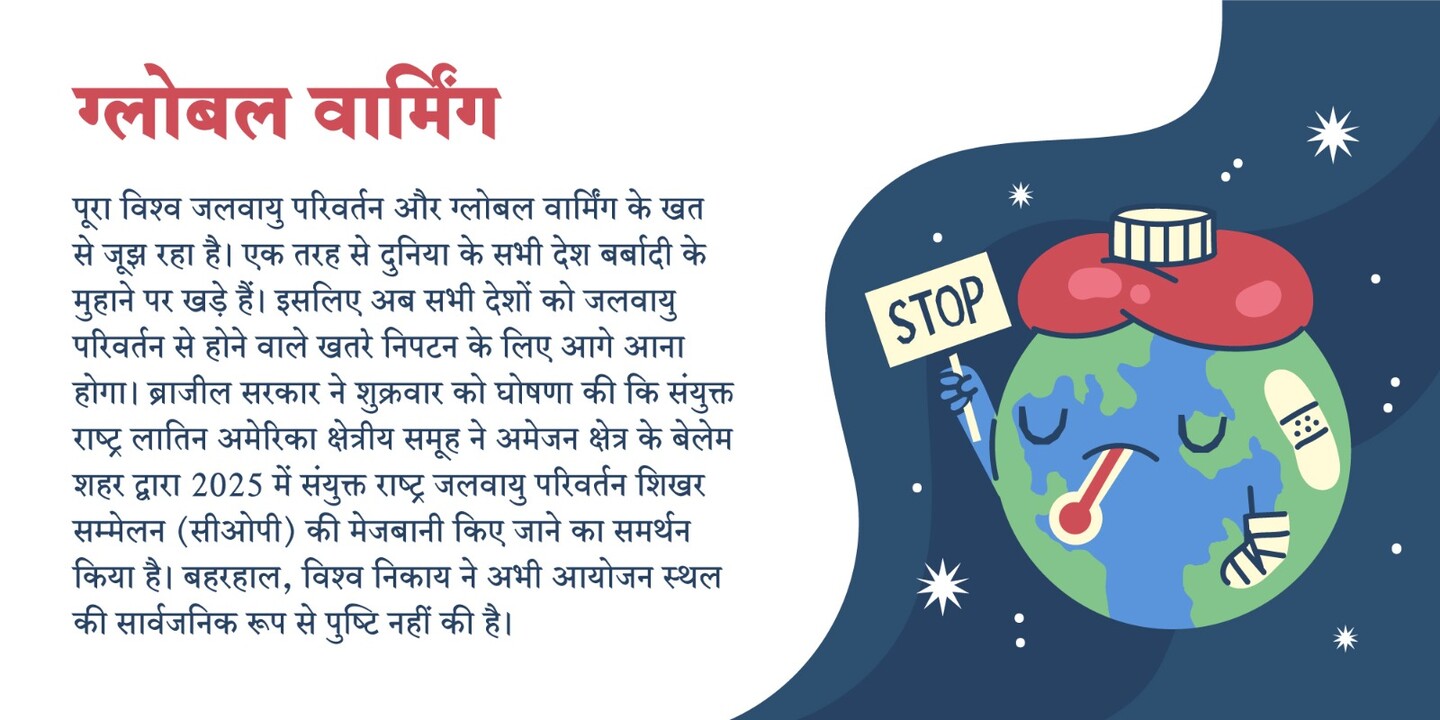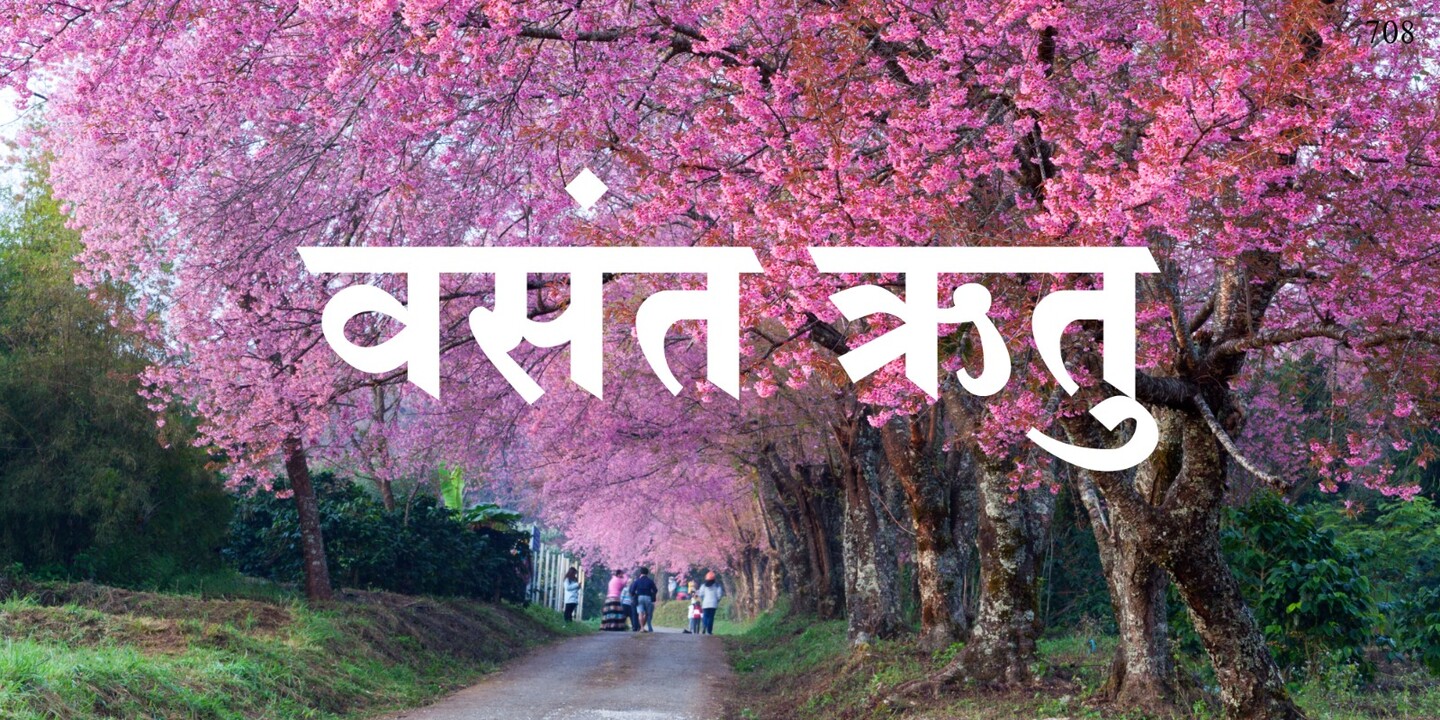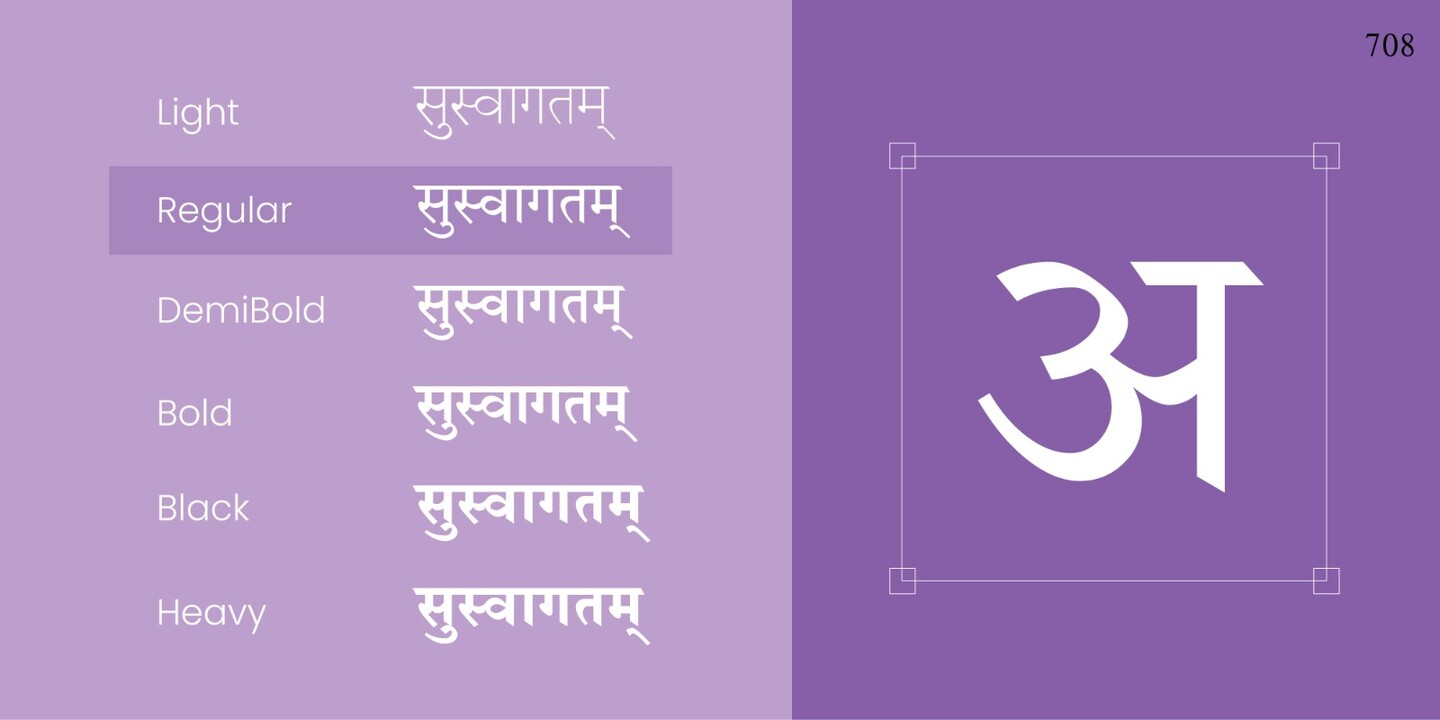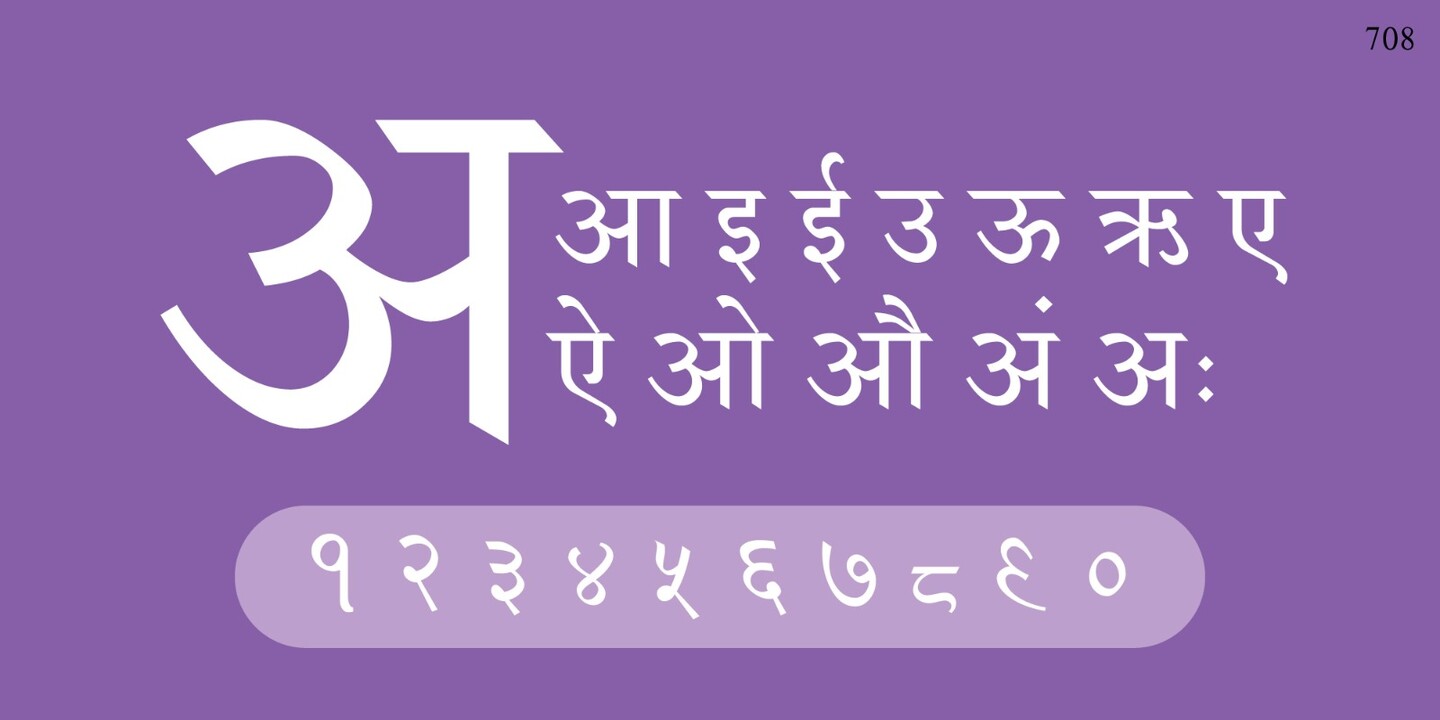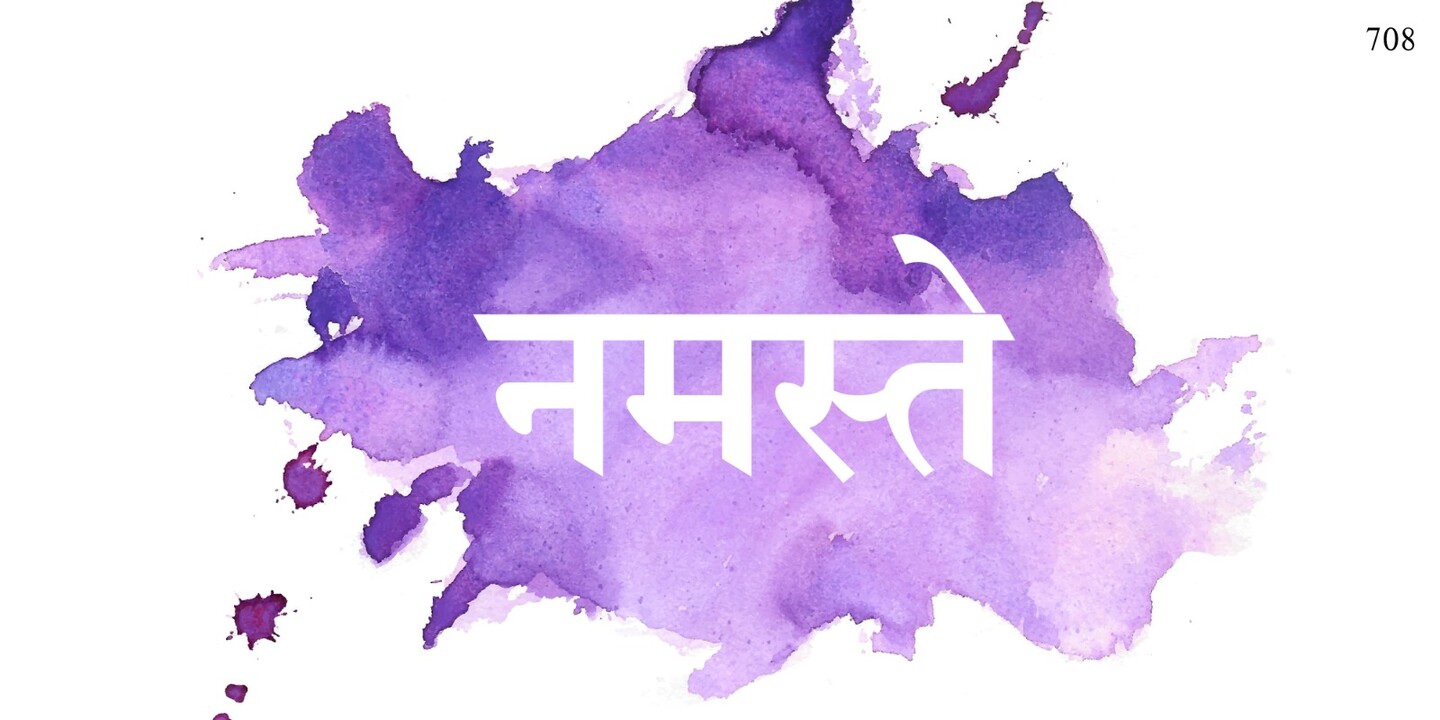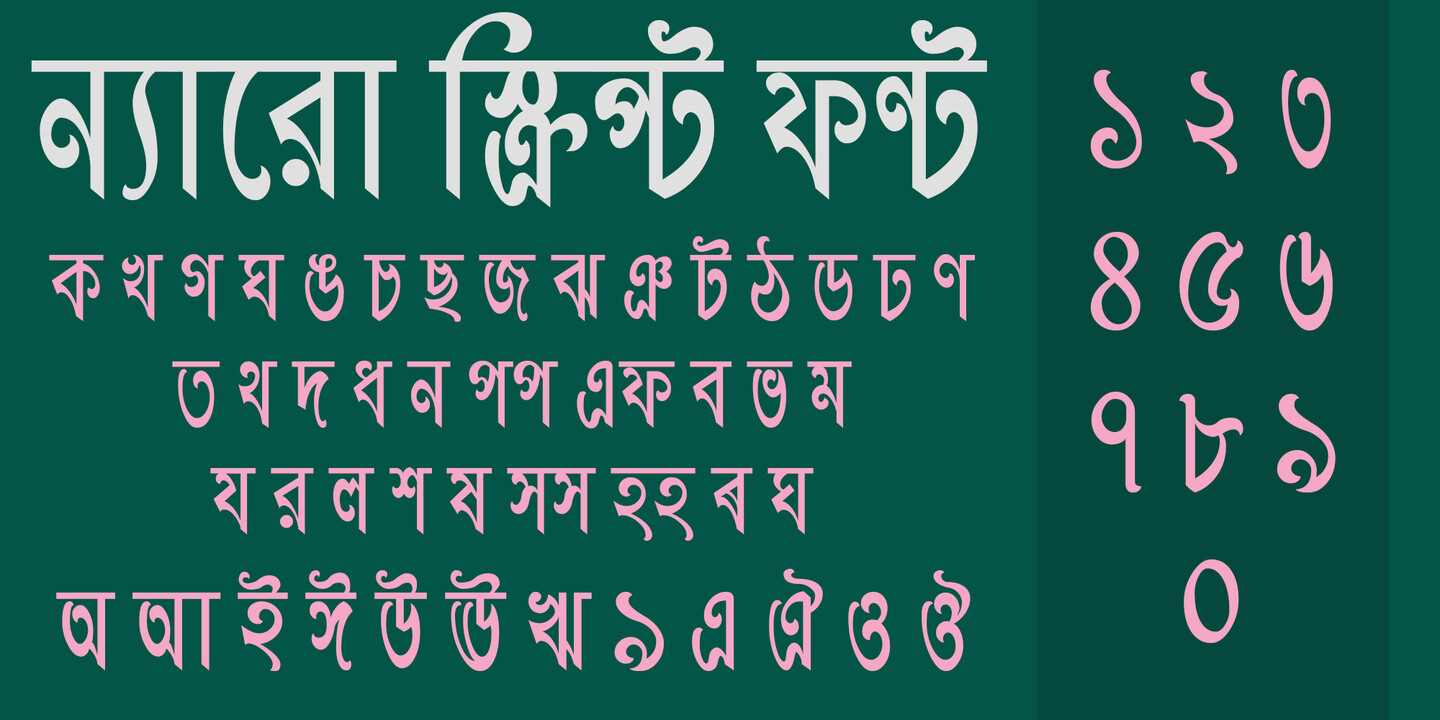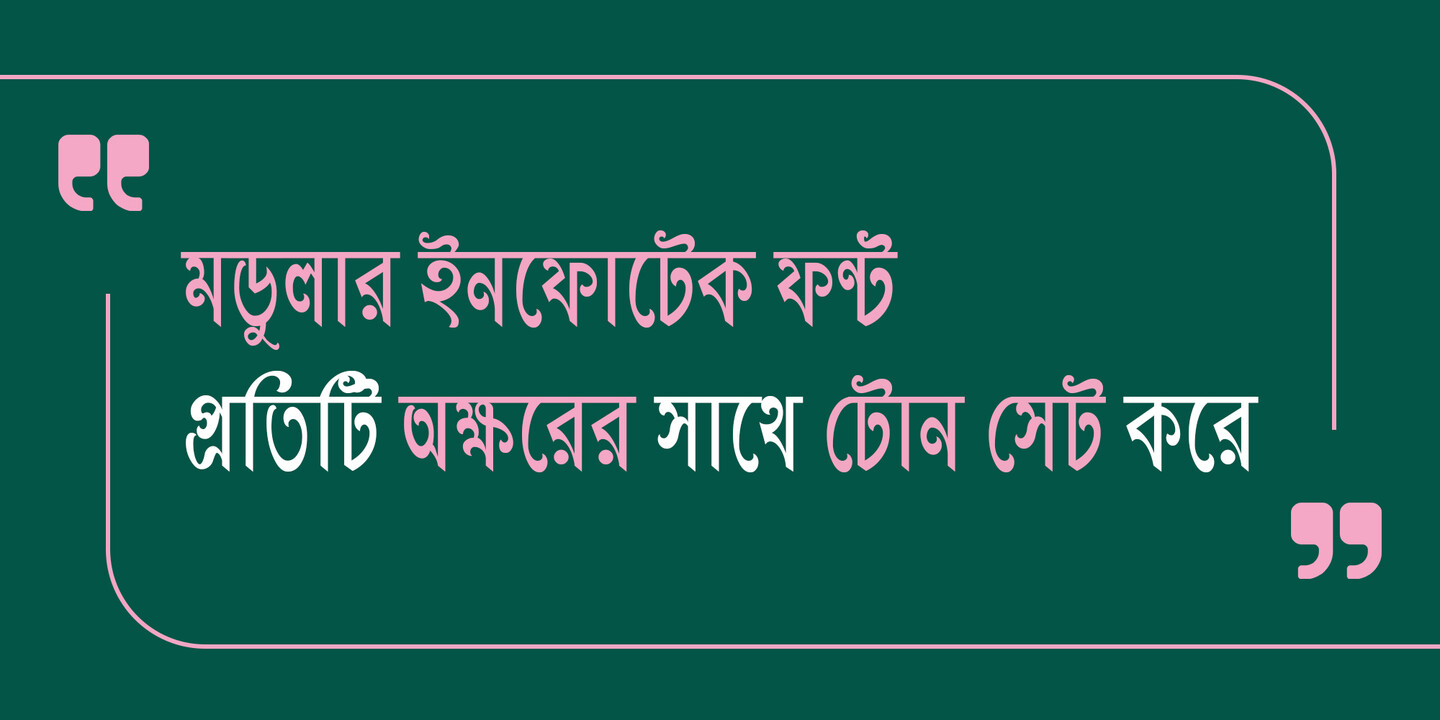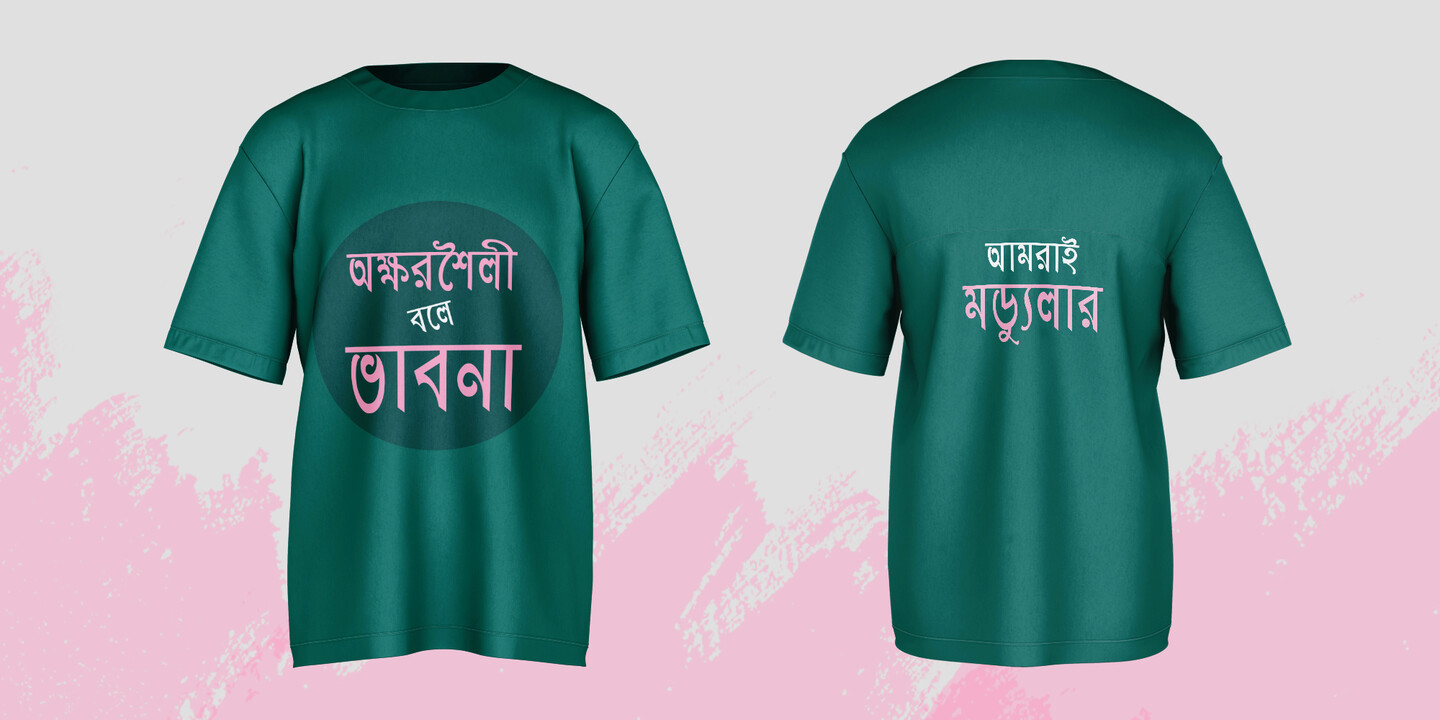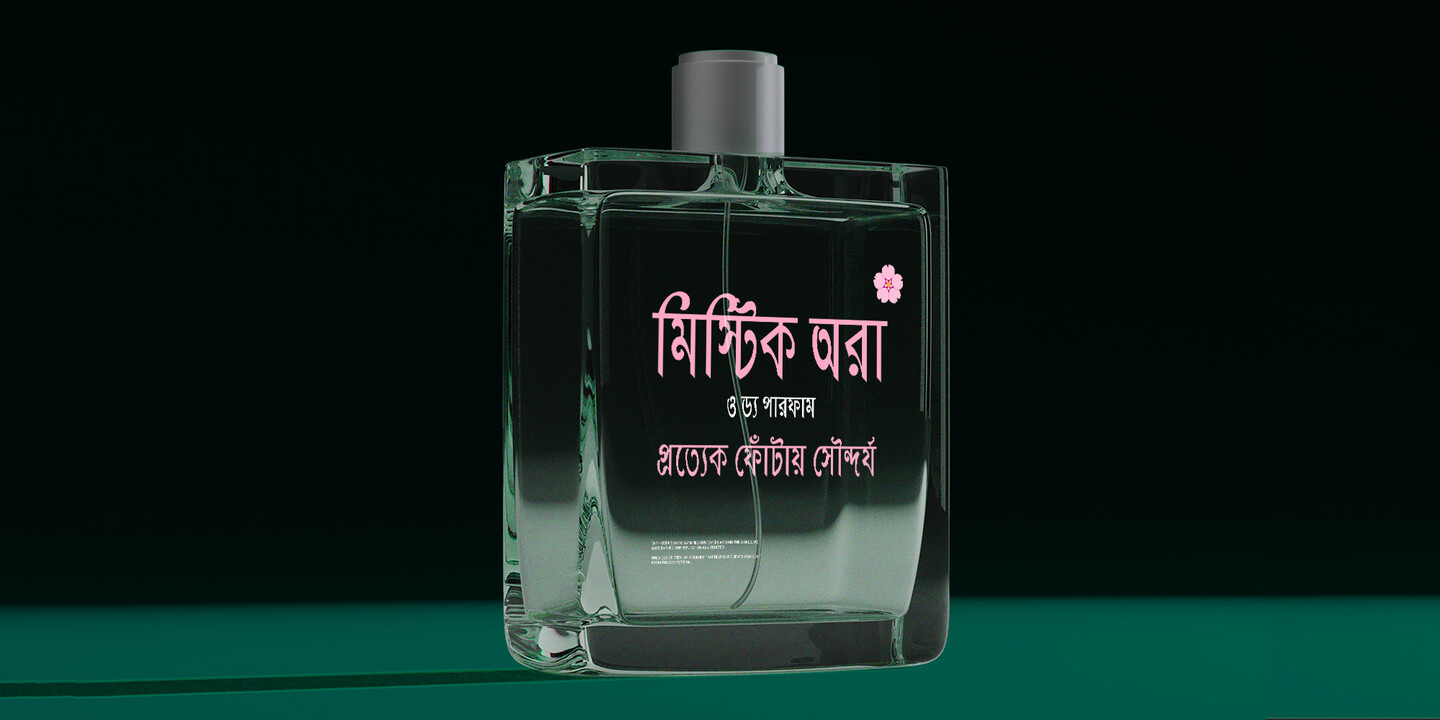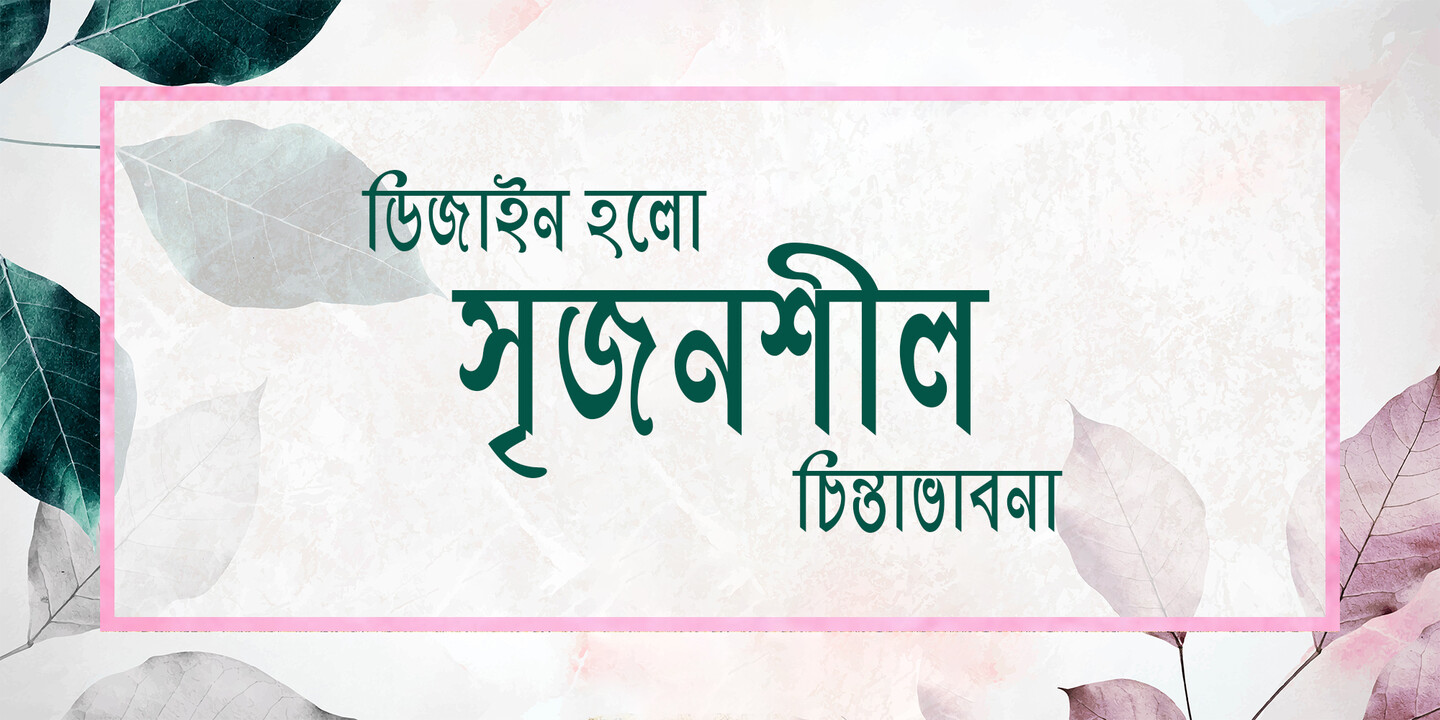
Fonts from Modular Infotech
Modular Infotech is renowned for possessing the world’s most extensive Indic fonts, designed to support India’s diverse linguistic heritage. Their fonts cover over 15 Indian languages, including Devanagari, Gujarati, Gurmukhi, Bangla, Assamese, Manipuri, Odia, Tamil, Kannada, Telugu, Malayalam, and Vedic Sanskrit. Each typeface is meticulously crafted for readability, cultural resonance, and aesthetic appeal, enabling authentic communication in regional languages.
Popular Modular Infotech fonts.
ShreeDev0708 is a sans-serif font widely used in Newspapers and Magazines. In India, it is predominantly used by news agencies and custom publications. This font family offers six weights: Light, Regular, Medium, Bold, Black, and Heavy. It supports various conjuncts, making it ideal for producing visually appealing text articles. With approximately 415 Devanagari characters, the font is designed to deliver excellent readability, even at small point sizes.
Shree Bangali 0554 is a finely crafted Bengali typeface presented in Regular with Italic variation, offering a clean and graceful look that emphasizes simplicity. Its forms are fluid yet disciplined, reflecting the natural rhythm of Bengali script while ensuring clarity in every setting. The design captures a balance between traditional elegance and modern restraint, making it a dependable choice for professional and creative communication alike.
This typeface is well-suited for academic publishing, formal documents, and editorial layouts that demand clarity and refinement. It also works effectively in invitations, literary works, and branding applications where a subtle but dignified tone is essential. With Italics adding expressive variety, Shree Bangali 0554 performs reliably across both print and digital formats.
Shree Punjabi 1766 is a display font that features a softer and more contemporary appearance with clean strokes. It carries a more approachable tone. The Regular weight works well for continuous reading, while the Bold weight offers strong emphasis without losing harmony.
The font’s design emphasizes clarity and cultural integrity, making it ideal for formal documentation, cultural promotions, and branding that seeks to honor Punjabi heritage. Best suited for magazines, advertisements, websites, and educational content. Its adaptability makes it reliable for both headlines and body text, especially in modern communication design.
Shree Malayalam 0501 is a modern, popular, and versatile text typeface designed to deliver clarity and sophistication across a wide spectrum of communication needs. It is offered in five weights—Light, Regular, Medium, Bold, and Black, each with matching italics. It provides flexibility for both expressive display and functional text applications. Its design achieves a balance between contemporary refinement and traditional script authenticity, making it suitable for projects where elegance and readability must coexist. Its readability is preserved across all scales, including small formats. With consistent proportions and well-tuned spacing, the typeface maintains rhythm and harmony even in dense compositions, ensuring a polished and professional appearance across media. Shree Malayalam 0501 is ideal for newspapers, magazines, and book publishing, as well as it equally adapts well to branding, advertising, and digital platforms. Its versatility makes it an excellent choice for corporate identity systems, official, and educational materials, signage and packaging. Whether used for bold headlines, formal documents, or long-form text, the typeface projects reliability and authority while retaining a contemporary edge.
Modular fonts excel in rendering complex ligatures and unique glyphs, accurately capturing each script’s stylistic and cultural nuances. Leveraging advanced OpenType technology, these fonts ensure flawless representation of intricate Indian scripts across print and digital mediums.